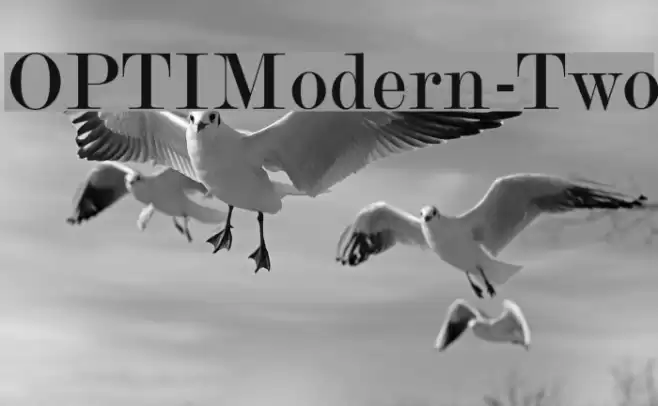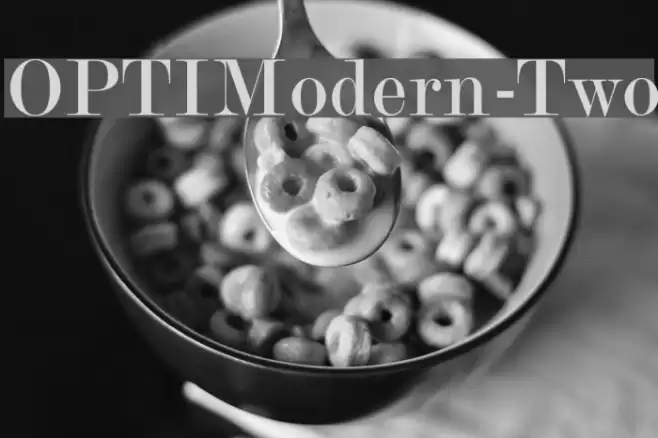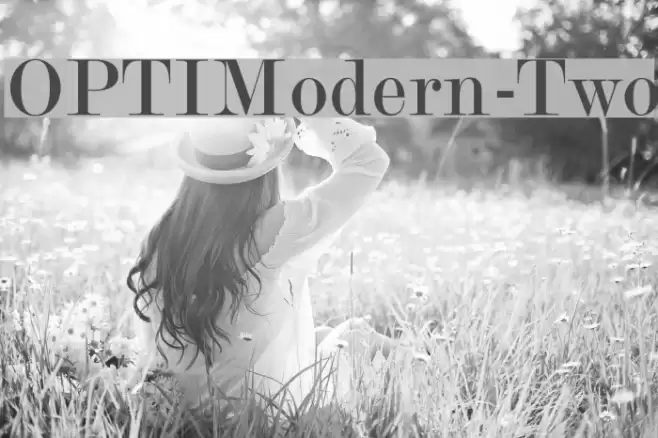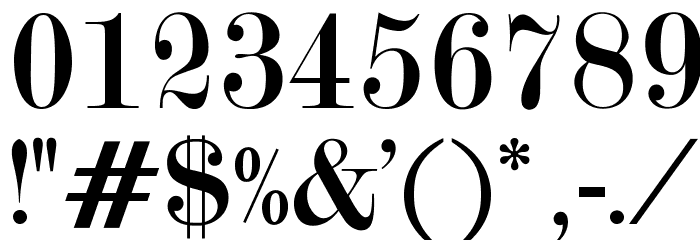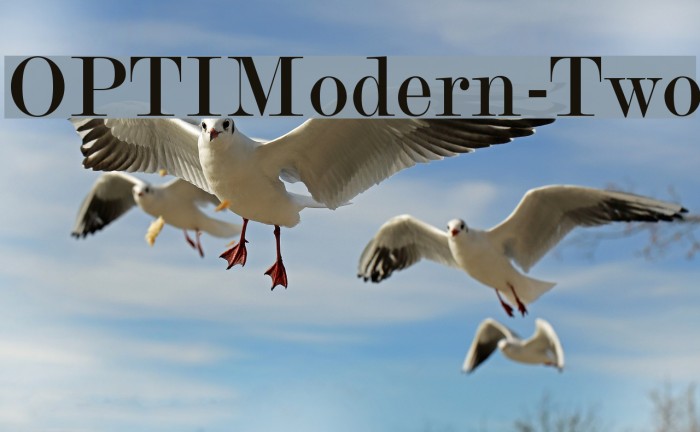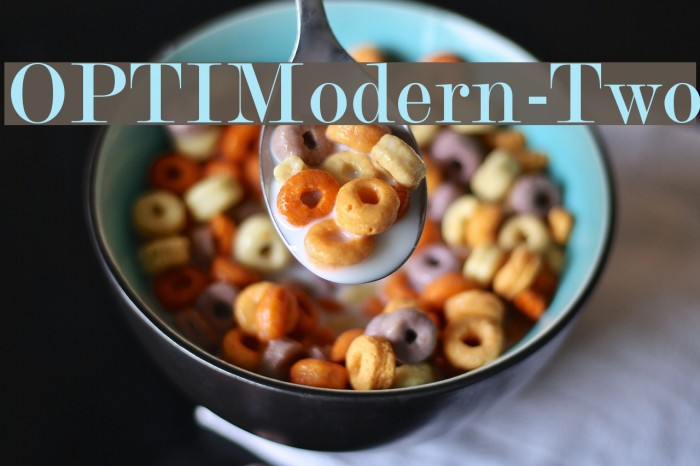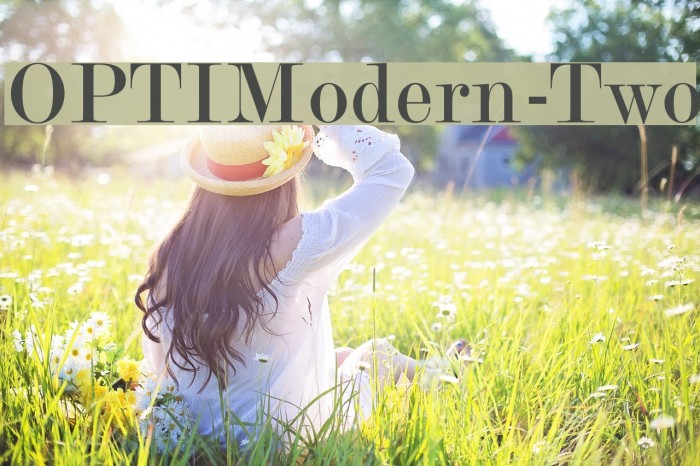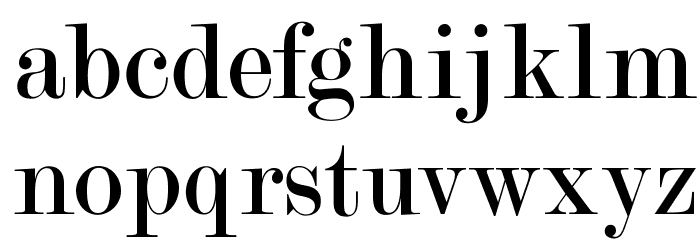
OPTIModern-Two Font
OPTIModern-Two Description
This font features a classic serif style with a modern twist, characterized by its high contrast between thick and thin strokes. The uppercase letters are elegantly tall and slightly condensed, while the lowercase letters maintain a balanced and harmonious appearance. The numerals are distinct and bold, providing excellent readability. Special characters are designed with a sophisticated flair, making them stand out. The overall design exudes a sense of elegance and refinement, suitable for both traditional and contemporary applications.
A modern serif font with high contrast and elegant styling from Uncategorized fonts.
- Proposed Projects: Ideal for editorial design, luxury branding, wedding invitations, and high-end product packaging.
- Use Case: Headlines, Logos, Editorial design